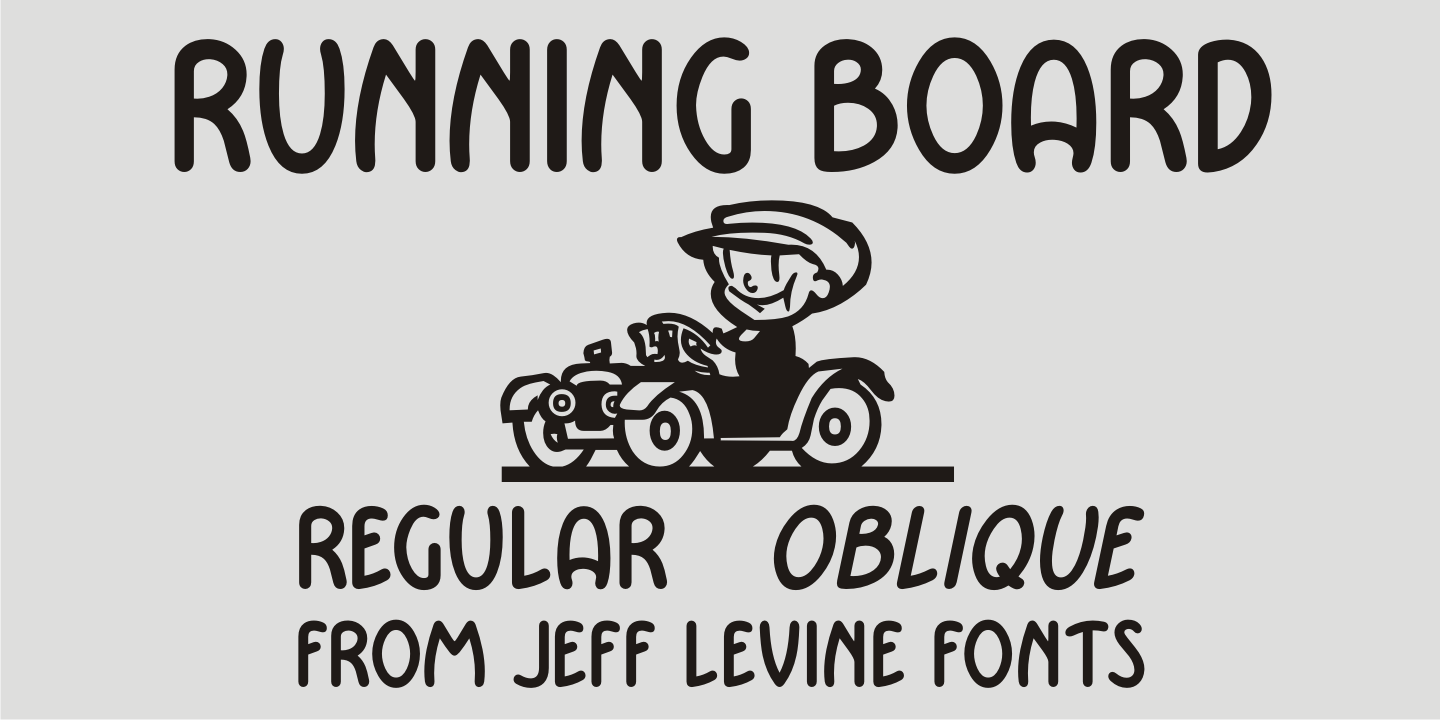
This distinctive typeface is an excellent choice for projects that demand a bold, retro, and unmistakably utilitarian aesthetic, reminiscent of early 20th-century automotive or industrial signage. Imagine it gracing the branding for vintage car restoration shops, providing a sturdy feel to workwear apparel, or adding an authentic historical touch to themed exhibits. Running Board JNL Font is also perfectly suited for designing classic automotive posters, crafting distinctive logos for hardware stores or workshops, or creating compelling visuals for heritage brands celebrating American ingenuity. Its often condensed, all-caps, and robust forms, with a sturdy, no-nonsense presence, make it an ideal option for any design seeking to convey durability, reliability, and a hardworking, vintage charm, such as diner menus, antique shop signage, or industrial-themed event promotions.
What makes Running Board JNL Font so exciting? It directly channels the aesthetic of hand-painted type found on old vehicles, machinery, and storefronts, offering a blend of historical authenticity and functional readability. The letterforms are characterized by their solid construction, often with subtle curves or simplified strokes that lend them a friendly yet dependable character. This font doesn’t just convey text; it evokes a bygone era of craftsmanship and American industry, imbued with a sense of honest utility. It's engineered to stand out in situations where a clear, bold, and characterful statement is required, ensuring your message is not only seen but also felt with a sense of enduring quality. The inherent solidity and pragmatic appeal of its character shapes make it particularly effective for brands that champion tradition, reliability, and a universally appealing, retro-modern identity.
The Running Board JNL Font family typically offers a focused range of weights or styles that align with its strong display purpose. You can expect to find options centered around its classic bold, condensed style, possibly with variations that offer different levels of ruggedness or clean precision. While a "Pro" version might include additional OpenType features for fine-tuning, the core strength lies in its impactful simplicity and vintage appeal. The design ensures that Running Board JNL Font remains a consistent and powerful tool for headlines, titles, and short, punchy messages where maximum visual presence is paramount. Its unwavering clarity and impactful design make it a reliable choice for conveying information that needs to be seen and understood immediately, embodying a sense of straightforward communication and vintage American strength.
Whether you're creating a memorable advertising campaign for a classic product, building a retro-inspired brand identity, or simply need a typeface that speaks with undeniable power and a direct, vintage attitude, Running Board JNL Font Free Download is an outstanding choice. Its distinctive impact and versatile nature will ensure your designs always leave a commanding and memorable impression.